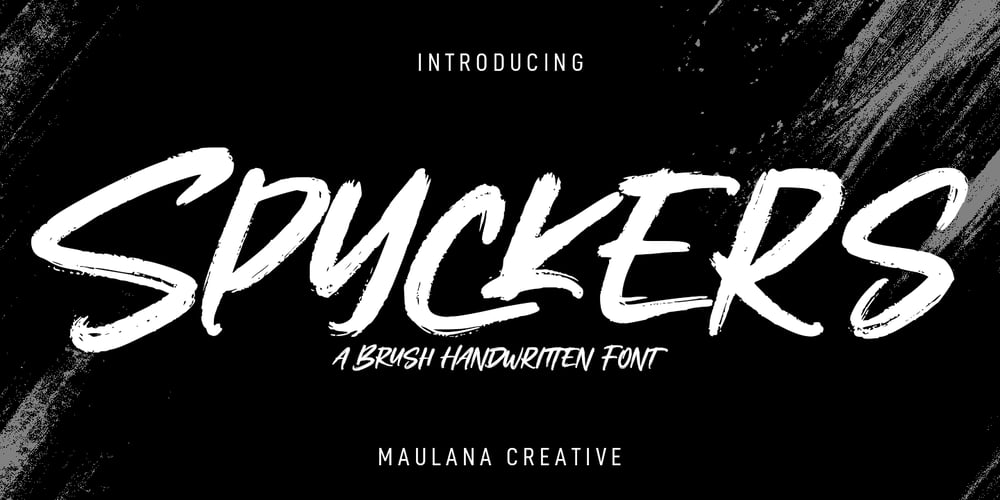
Spyckers Font Family was designed by Gilang Maulana and published by Maulana Creative. Spyckers contains 1 styles and family package options. Spyckers is an expressive handwritten brush font. With bold rough brush stroke, fun character with a bit of ligatures and alternates. To give you an extra creative work. Spyckers font support multilingual more than 100+ language. This font is good for logo design, Social media, Movie Titles, Books Titles, a short text even a long text letter and good for your secondary text font with sans or serif. Make a stunning work with Spyckers font.Cheers,Maulana Creative